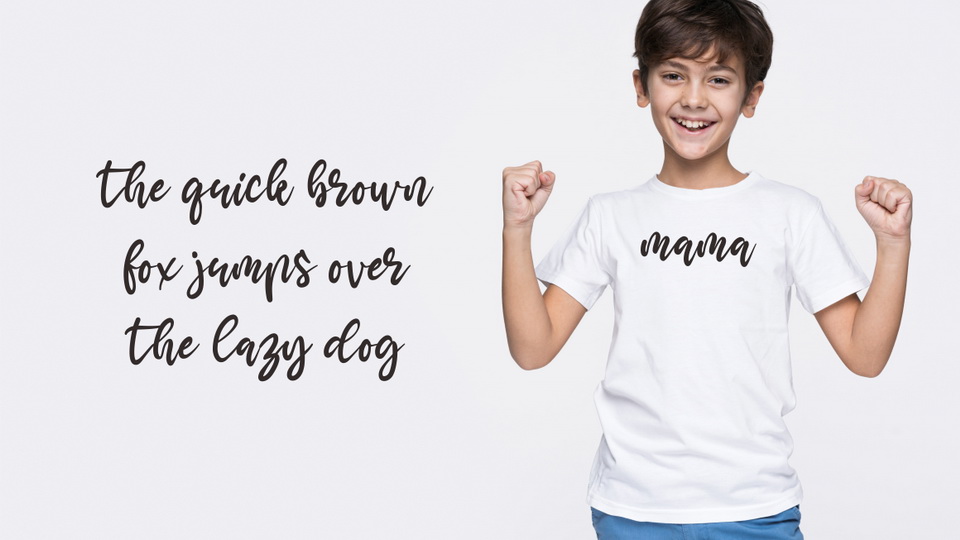
Mama is a beautiful calligraphy script that feels incredibly elegant and flowing. It looks stunning on wedding invitations, thank you cards, quotes, greeting cards, logos, business cards and every other design which needs a handwritten touch.